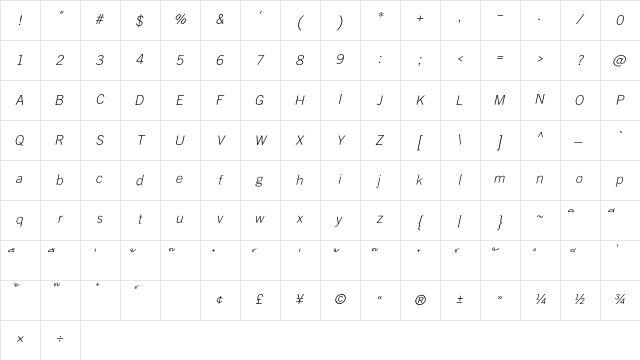
MP DBManothai Thin It
Style: Thin It
Foundry: Prinya R. nont
Designer: Prinya Rojarayanont
Design Context for MP DBManothai
MP DBManothai is a composed and adaptable typeface that performs quietly and consistently across a wide range of design contexts. Its slender proportions lend an understated elegance to any composition.
Who designed the MP DBManothai Thin It font?